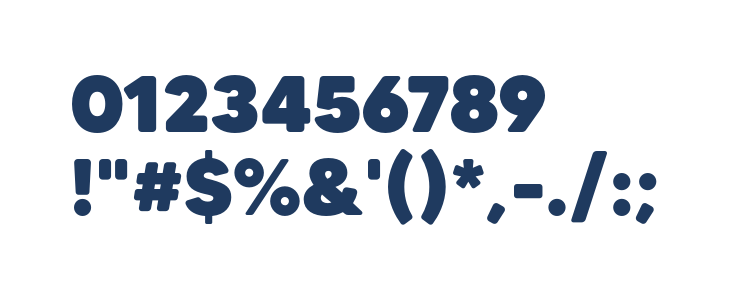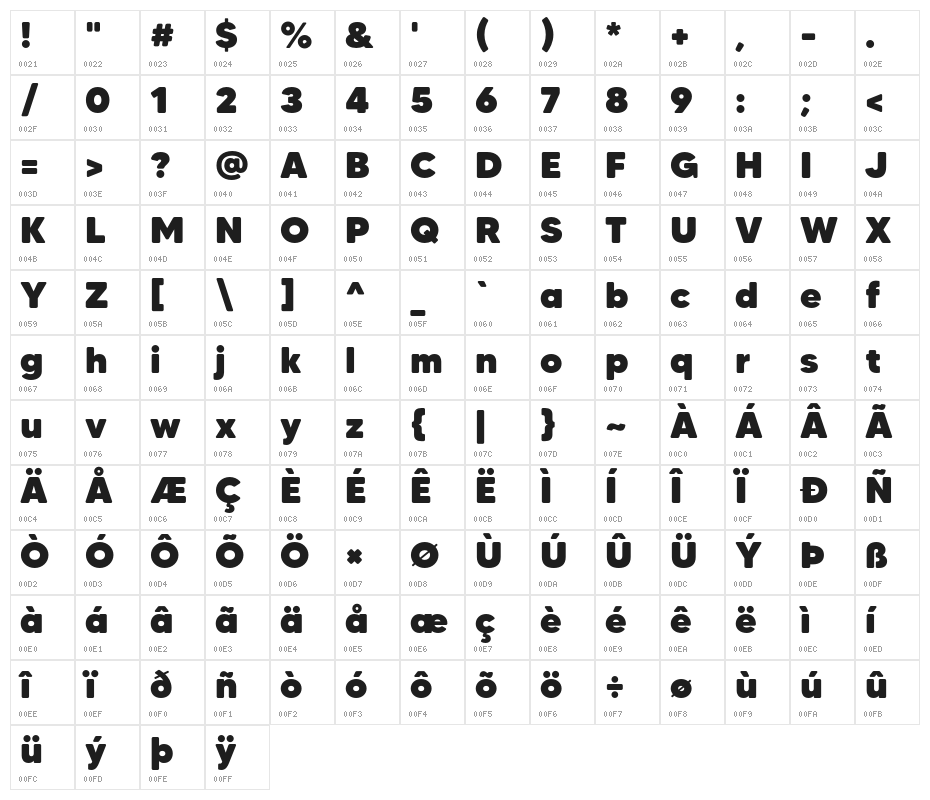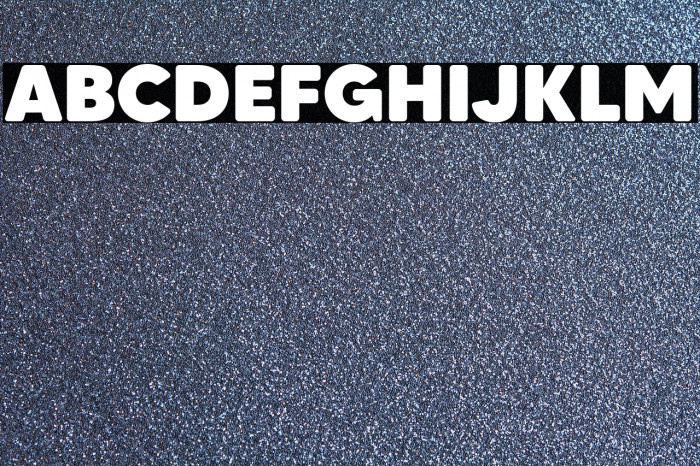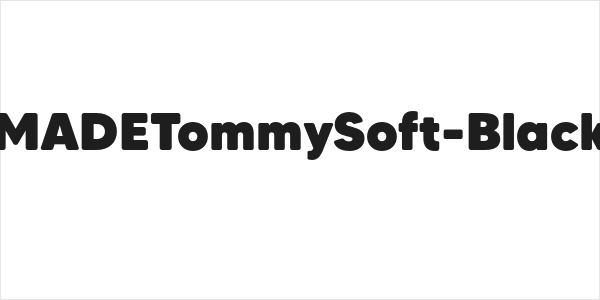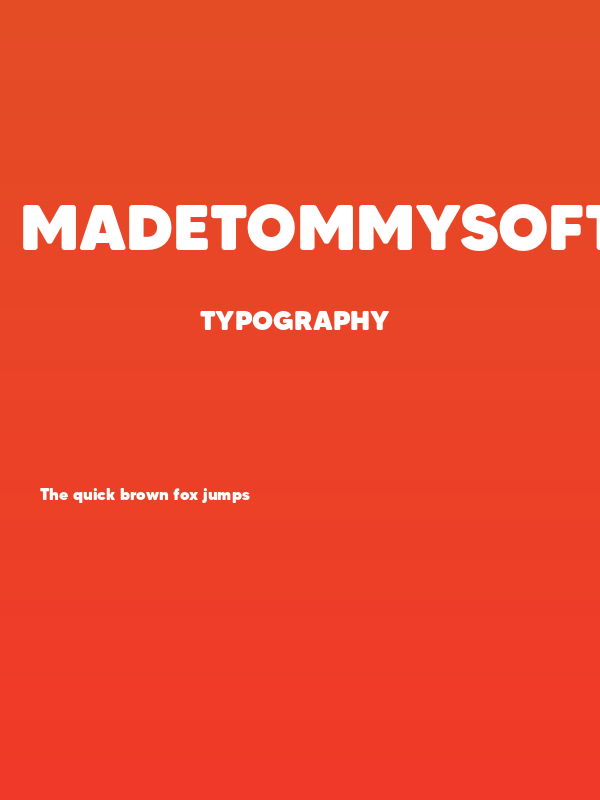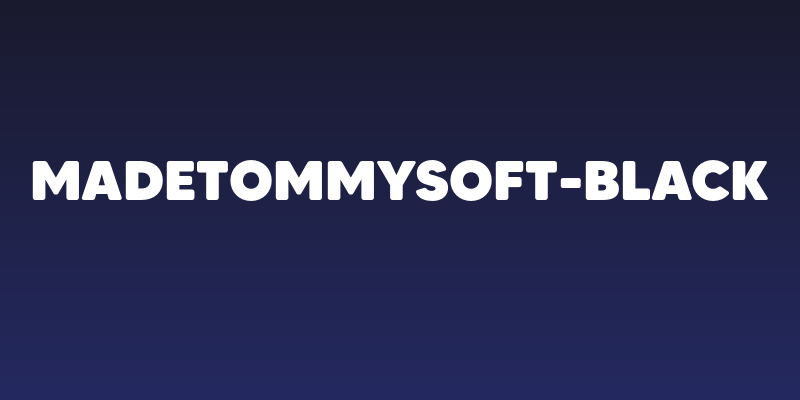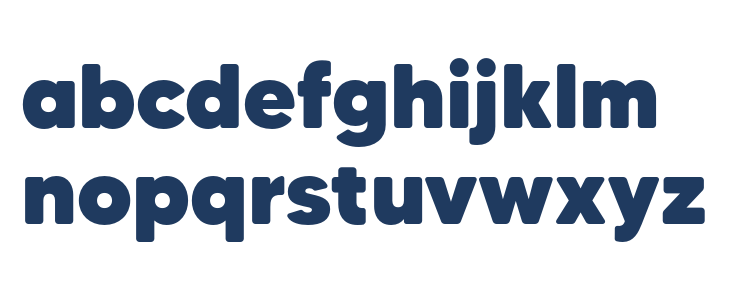
MADETommySoft-Black Font
MADETommySoft-Black Description
This font features a bold and rounded style, characterized by its thick, uniform strokes and smooth curves. The letters are designed with a modern aesthetic, offering a friendly and approachable appearance. The uppercase and lowercase letters maintain a consistent weight, providing a cohesive look across all characters. The numerals and special characters are equally bold, ensuring readability and impact. The overall design is clean and simple, making it suitable for a variety of applications where clarity and modernity are desired.